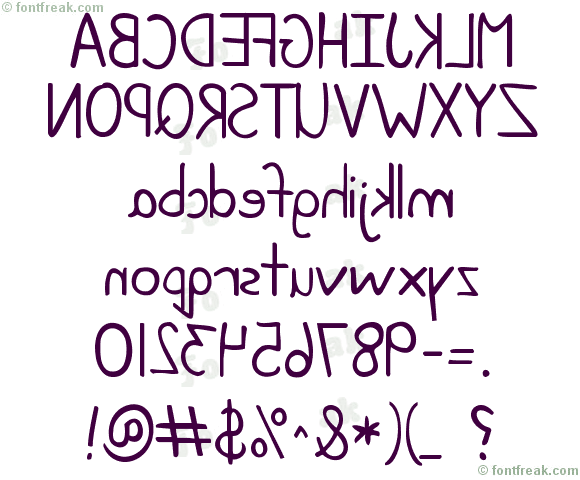
KG June Bug Reverse
About KG June Bug Reverse
KG June Bug Reverse, designed by Kimberly Geswein, is a unique handwritten font that effortlessly combines playfulness and elegance. As part of the script category, this font showcases a whimsical character with its flowing strokes and charming curves. The design features a medium stroke weight with minimal contrast, contributing to its legibility while maintaining a casual, approachable feel. The spacing is well-balanced, allowing the letters to breathe without appearing crowded, making it ideal for various design applications.
This font is particularly well-suited for creative projects such as wedding invitations, where its charming aesthetic can add a personal touch. It also excels in crafting eye-catching greeting cards, helping to convey heartfelt messages in a distinctive style. For small businesses, KG June Bug Reverse is an excellent choice for restaurant menus, as it can evoke a warm, inviting atmosphere that resonates with patrons. Additionally, it can enhance social media graphics for content creators who wish to stand out with a fun yet sophisticated look.
The target audience for this font includes graphic designers, small business owners, and content creators looking to add a unique flair to their projects. Its free availability makes it an attractive option for those on a budget, while its versatile design appeals to a wide range of users.
What sets the KG June Bug Reverse font apart is its ability to blend creativity with functionality. Its playful yet polished appearance allows it to adapt to various contexts, making it a valuable addition to any designer's toolkit. For those interested in this captivating typeface, a KG June Bug Reverse font free download is readily available, making it easy to incorporate this enchanting style into your next project.